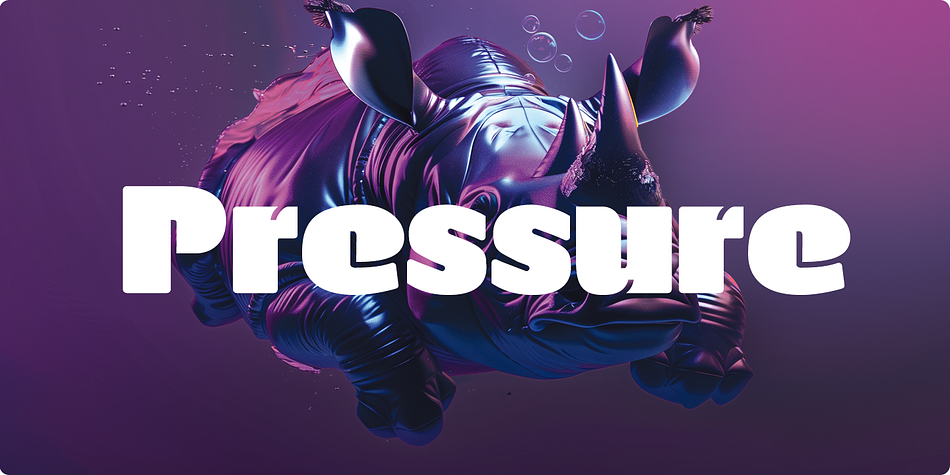
Manometer Sans
Designed by Arne Freytag, Manometer Sans is a display sans font family. This typeface has two styles and was published by Fontador.
Manometer Sans is a pneumatic ultra-black sans serif typeface with soft corners and fine counters and is the sans-version of Manometer.